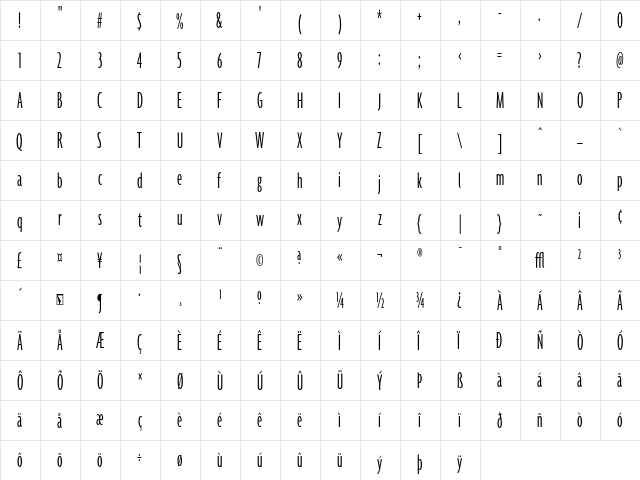
Agenda LightUltraCondensed Font Preview
Agenda LightUltraCondensed
Design Context for Agenda Typeface
Agenda is a composed and adaptable typeface that performs quietly and consistently across a wide range of design contexts. The delicate stroke weight brings airiness and refinement to layouts. Its narrow stance lets it pack a punch even in space-constrained designs.